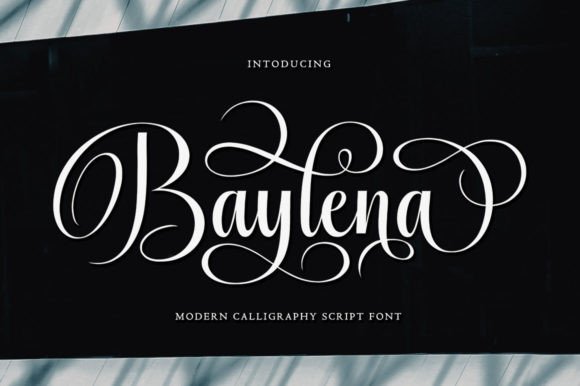
Dive into the world of Baylena Font, a captivating script font that dances across your designs, leaving a trail of elegance and sophistication. This modern calligraphy masterpiece effortlessly blends the charm of traditional penmanship with a refreshing contemporary twist. Prepare to be enchanted as Baylena's graceful curves and sweeping strokes bring your projects to life, evoking emotions and captivating audiences.
Unleash your creativity and let Baylena's enchanting characters transform your designs into visual masterpieces. Craft stunning logos that exude a timeless appeal, website headers that radiate personality, or social media graphics that capture attention from the first glance. Baylena's versatility knows no bounds; it seamlessly adapts to a wide array of projects, from wedding invitations that whisper romance to product labels that demand attention.
With Baylena Font, precision meets beauty, as each letterform has been carefully crafted to ensure impeccable execution. Its PUA encoding opens up a world of possibilities, granting you effortless access to a treasure trove of glyphs and ligatures, empowering you to add intricate details and unique flourishes to your designs.
As a Baylena user, you'll embark on a journey of creative exploration, where every project becomes a canvas for your imagination. Its user-friendly nature makes it a delight to work with, whether you're a seasoned designer or just starting your artistic adventure. Baylena Font is your gateway to creating designs that resonate, designs that captivate, and designs that leave a lasting impression.
Step into the realm of Baylena Font today, and elevate your projects to new heights of artistry. Experience the magic of this enchanting script font, where elegance and modernity intertwine, creating a symphony of visual delight.